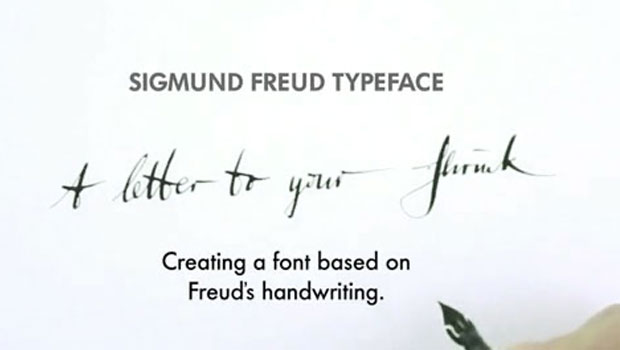
Freudian Glyphs: The Sigmund Freud Typeface
Let’s “kick” off the week with a cool new font-related Kickstarter project. This one is the brainchild of Harald Geisler, a typographer in Frankfurt, Germany. The project (which has already surpassed its initial funding goal by a factor of ten) is to create a font based on the handwriting of Sigmund Freud. Natually, the name of the project is “A letter to your shrink.”
Geisler drew inspiration for the project from seeing Freud’s letters, and both the Sigmund Freud Museum in Vienna and the Freud Museum in London have given him digital copies of Freud’s manuscripts as source material for the font.